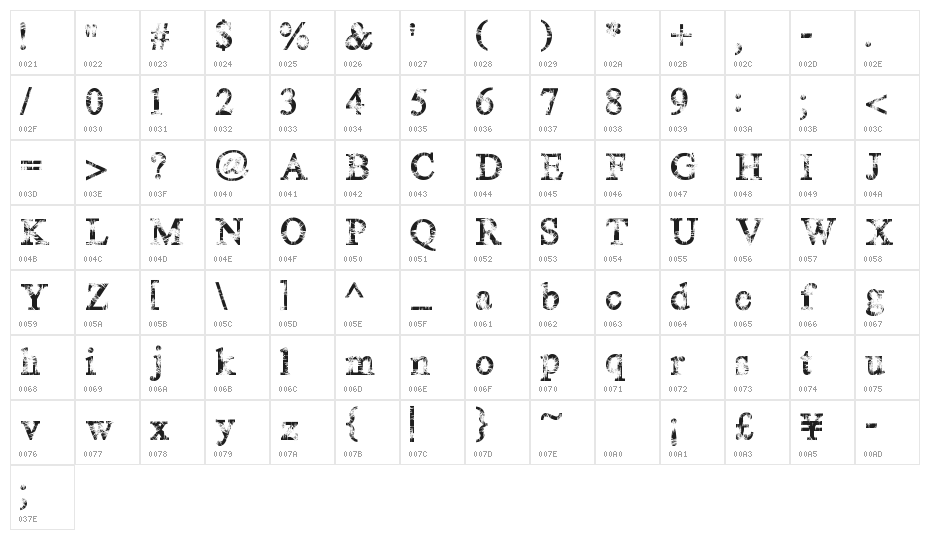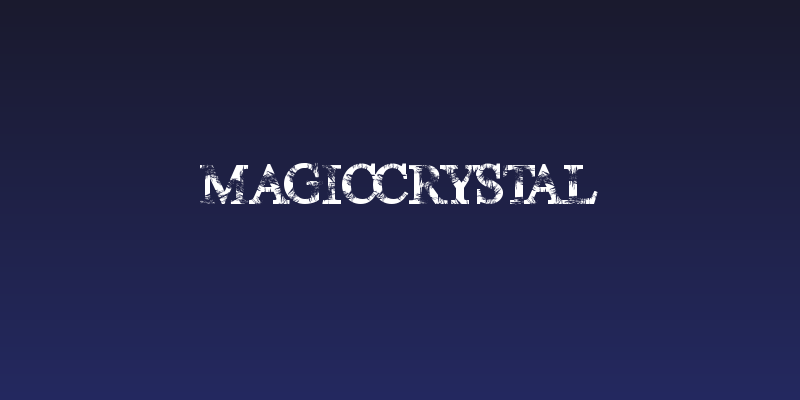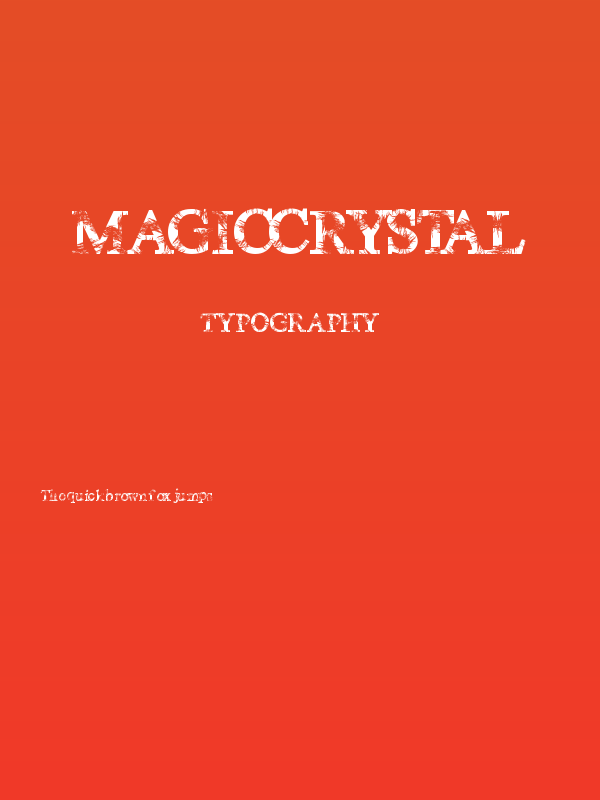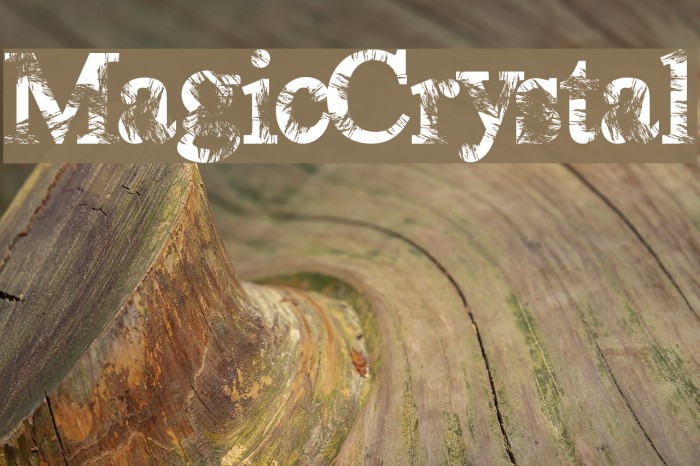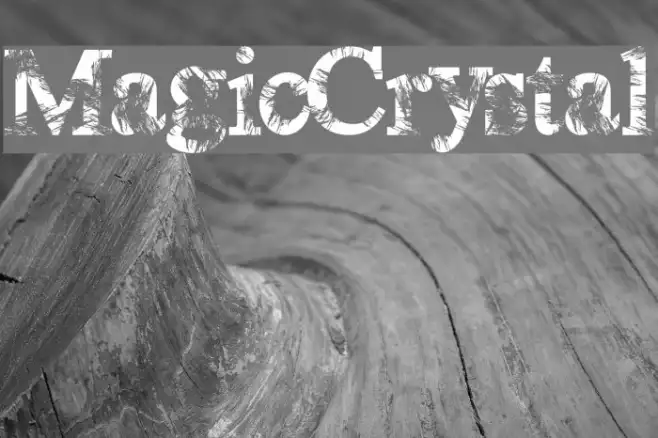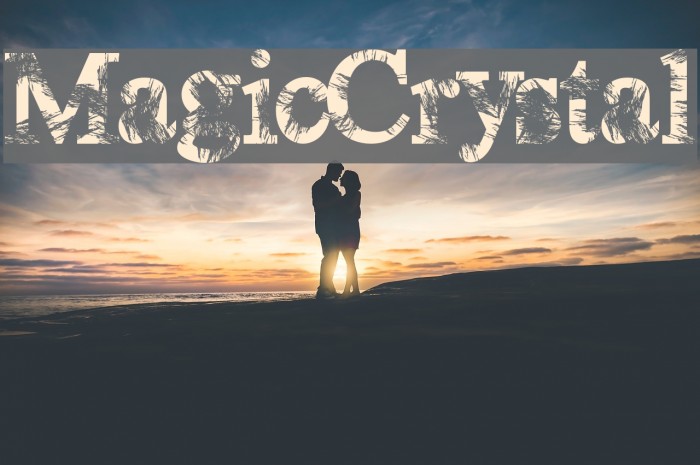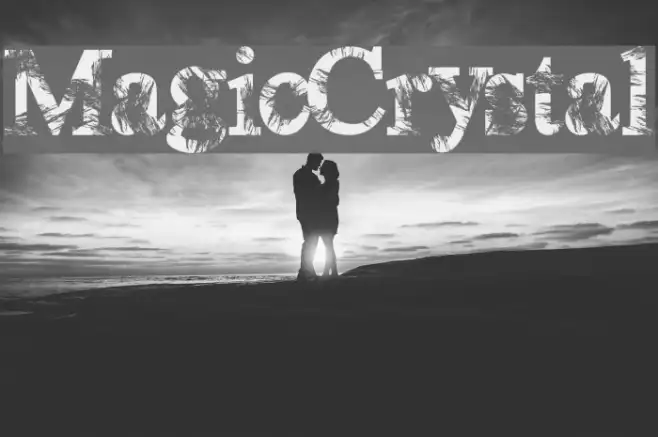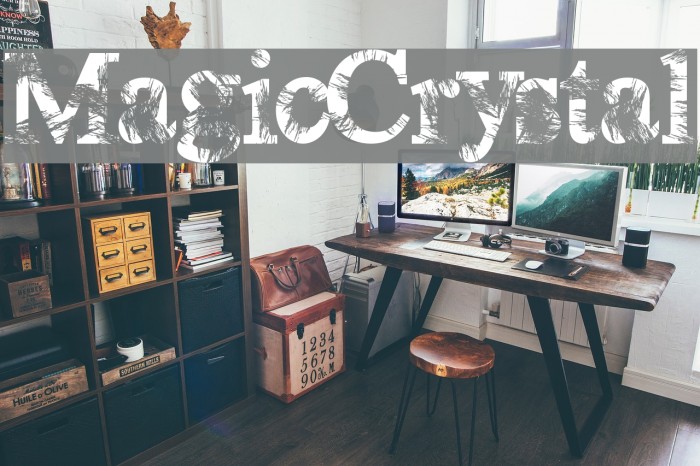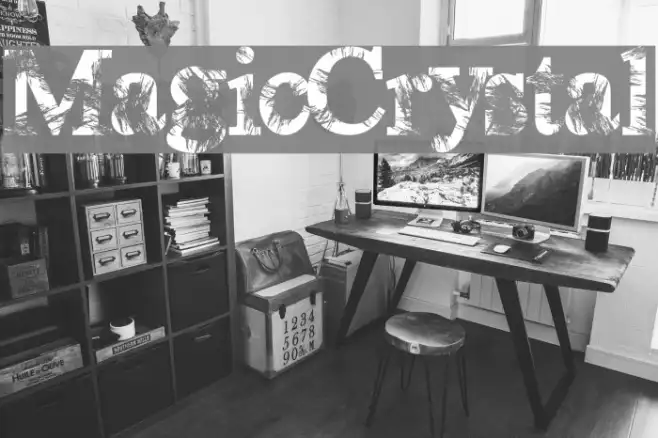
MagicCrystal Font
MagicCrystal Description
This font features a distressed, textured appearance, reminiscent of cracked surfaces or shattered glass. The bold, uppercase and lowercase letters are designed with a rough, uneven texture that gives an edgy and dynamic feel. The numerals and special characters follow the same style, maintaining a consistent look throughout. The font's unique style makes it stand out, ideal for projects that require a bold statement or an artistic touch. Its decorative nature is perfect for creating eye-catching headlines or logos that demand attention.
MAGICCRYSTAL UPPERCASE
MAGICCRYSTAL LOWERCASE
MAGICCRYSTAL OTHER CHARS